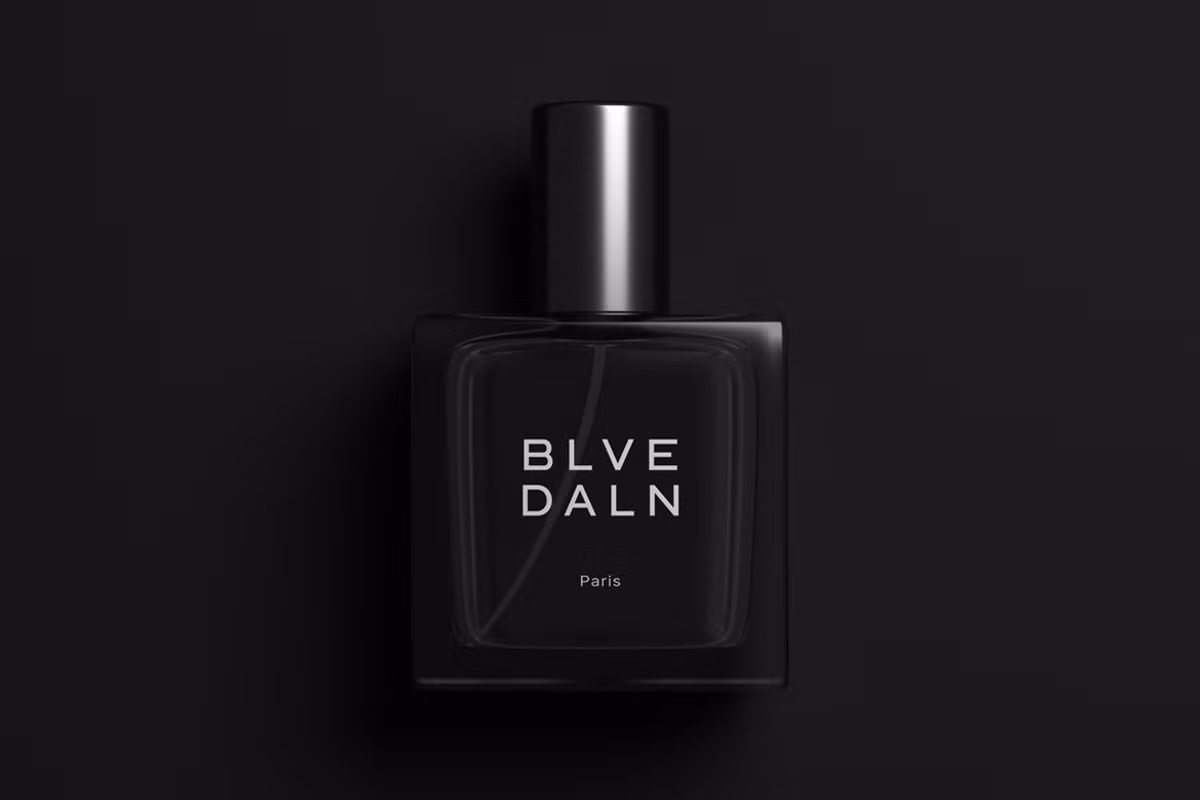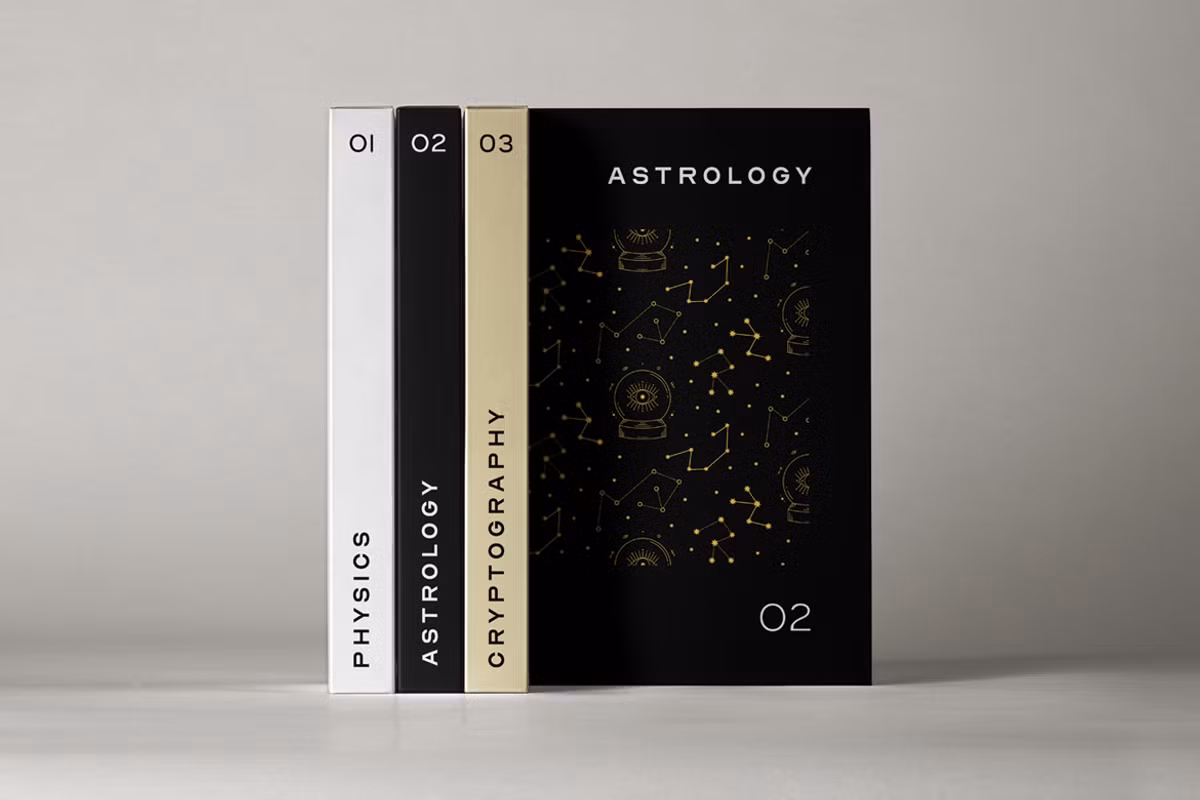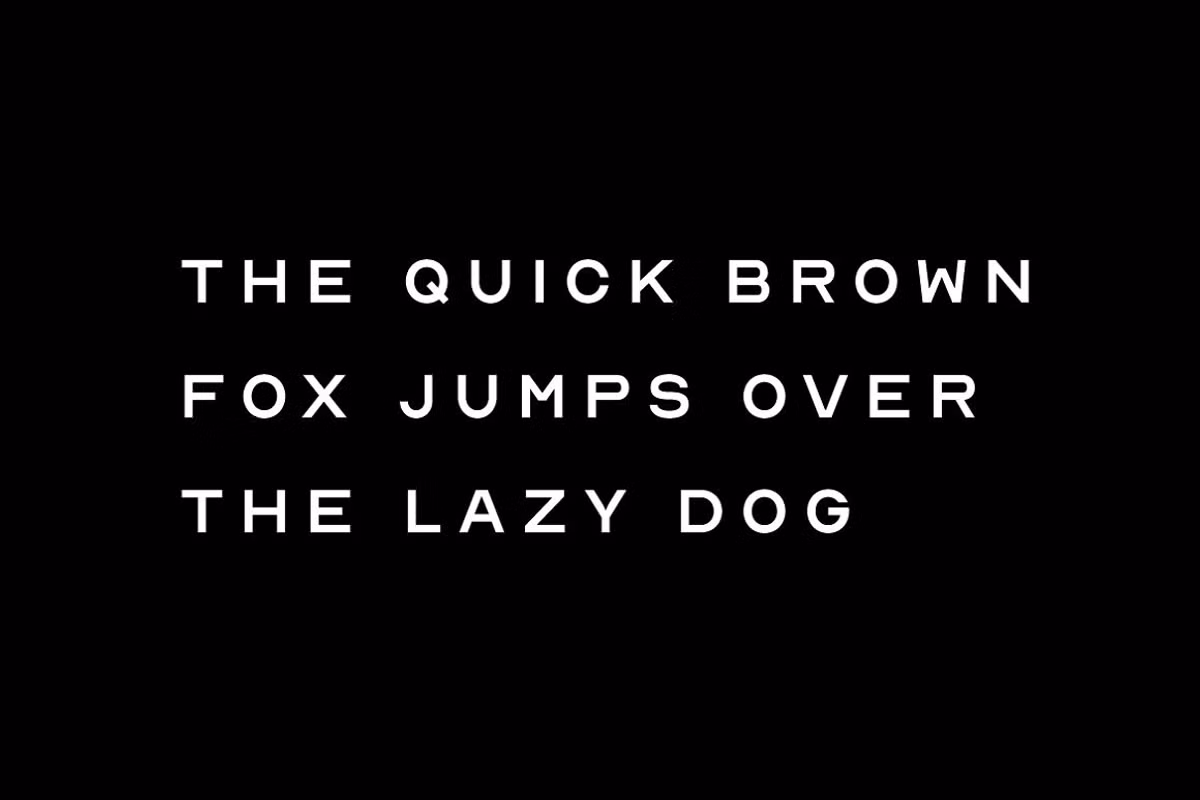
NORD: Modern Minimal Display Font Family for Branding & Design
Introducing NORD: A Modern Minimal Display Font Family
The NORD font family is a simple and modern font that is great for making brands and designs look good. It’s special because it’s all in capital letters and the spacing between the letters is just right. This makes it perfect for things like logos, company identities, and ads. The NORD family has 14 different fonts, so you can use them in lots of different ways and still have a consistent look. Whether you’re making a fancy brand identity or just want to grab people’s attention with big headlines, NORD is designed to help you communicate in a way that really stands out.
Design Style: Modern Minimalism
The idea behind the NORD font family is to keep things simple and modern. Each letter is carefully made to be clear and easy to read, so it works well on computers and in print. The lines are clean and the shapes are geometric, which gives it a fresh feel. Because it’s all in capital letters, it really stands out. This style makes NORD a great choice for lots of different uses, like company logos or advertising campaigns. It’s versatile and looks good in many situations. The simple design of NORD means it can be used in many contexts, from professional business branding to exciting marketing projects.
Versatility in Application
NORD is a really flexible font family. You can use it for lots of different design projects, like making a logo, building a website, or creating ads. The NORD family has many different weights, from super thin to really bold, which lets designers experiment with contrast and make their text more interesting. This means NORD can work well with many different brands, making it a great tool for designers to have. It’s like a chameleon – it can fit in with lots of different styles and looks. Whether you’re working on a big project or a small one, NORD can help you create something that looks great and gets your message across.
The way letters are spaced in NORD makes it really easy to use in different design layouts. This feature is great because it makes sure the text is easy to read, no matter how big or small it is. It also adds a bit of style to the overall look of the text. The attention to detail in how the letters are spaced is especially helpful when it comes to branding and marketing, where being clear and looking good is really important. This is because when you’re trying to get a message across, you want to make sure it’s easy to understand and nice to look at. By getting the letter spacing just right, you can make a big difference in how your message comes across.
Character Sets and Glyphs
The NORD font family is special because it has a lot of characters, which means it can be used to write in many different languages. It supports Western European, Central European, and South Eastern European scripts, so people from many countries can use it. With 276 glyphs, NORD is a great choice for designers who want to create things that people all around the world can read. It’s like a universal language, but for fonts. This makes NORD a popular pick for designers who need a font that can handle lots of different linguistic needs.
Extended Language Support
NORD’s character set supports a wide array of languages, including but not limited to:
- Afrikaans
- Albanian
- German
- Spanish
- Swahili
- French
- Italian
This means that NORD can help designers make things that people all around the world can understand. It’s really useful when companies want to sell their products or services to people in different countries. With NORD, designers can create materials that work well for international brands and marketing campaigns. This makes it a powerful tool for companies that want to reach a global audience.
Glyph Variety and OpenType Features
The NORD font family has a lot to offer with its 276 glyphs. This means designers can use a wide range of characters to make their text look really good. The OpenType features in NORD are also very powerful, giving designers the ability to create unique and interesting designs. They can easily customize the way their text looks, which is great for creating a brand that stands out. This makes it easy to tailor the design to fit the brand’s style, and that’s a big plus for designers who want to create something special.
Use Cases for NORD Font Family
NORD is designed to excel in various use cases, making it a practical choice for designers across different industries. Here are some prominent applications:
Branding and Corporate Identities
When it comes to branding, the NORD style is really helpful for businesses to look professional and clear. The fact that it’s all in capital letters gives it a sense of importance, which is great for logos and company identities that want to make a big impression. Plus, NORD comes in different weights, so companies can customize it to fit their needs and make sure everything looks the same across all their platforms. This consistency is key to building a strong brand. By using NORD, businesses can create a cohesive look that helps them stand out and look professional.
So, what makes the NORD font family so special? It’s a modern, minimal display typeface that’s really versatile – perfect for branding and design projects. The clean lines and huge character set, along with multiple weights, make it a great tool for designers who want to create visuals that really grab people’s attention. And the best part? It’s affordable, with top-notch support and regular updates. That’s why NORD is a must-have for graphic designers, marketers, and brand strategists. Whether you’re building a new brand from scratch or just designing some marketing materials, NORD can help take your designs to the next level and leave a lasting impression.